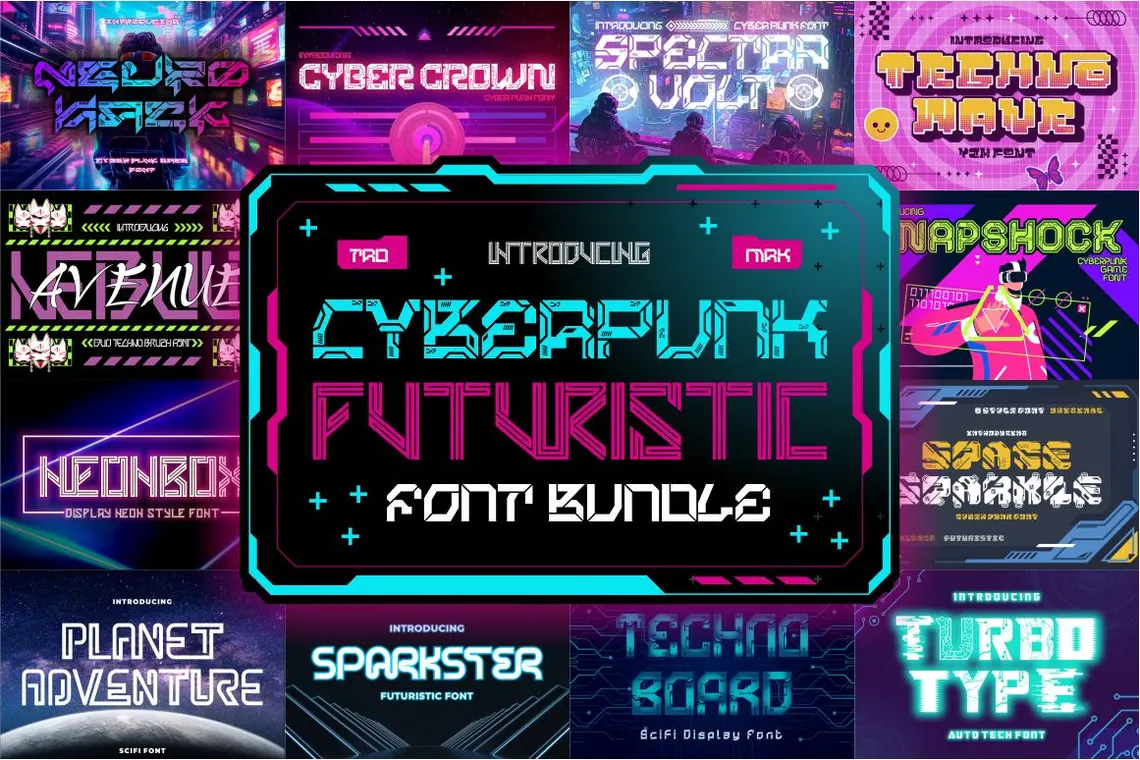
Best Cyberpunk & Futuristic Font Bundle in 2025
🧠 Explore the Ultimate Cyberpunk Font Bundle for Sci-Fi and Gaming Projects
As digital design races forward into the future, one trend continues to dominate motion graphics, gaming visuals, UI/UX, and brand identity: cyberpunk and futuristic typography. For designers seeking to push the limits of imagination, the Cyberpunk Futuristic Font Bundle on Etsy is the ultimate toolkit.
Packed with 14 premium techno-themed fonts, this bundle delivers a curated selection of cutting-edge styles—from glitch aesthetics to neon display, pixel-grid precision to sci-fi elegance. It’s the perfect choice for creators in gaming, tech, music, branding, and digital storytelling.
Let’s dive deep into why this font bundle is a must-have in 2025 and how each font inside it can level up your creative work.
🚀 Why Choose a Cyberpunk Font Bundle?
In the age of AI, augmented reality, and virtual worlds, futuristic design is no longer niche—it’s essential. This font bundle gives you:
• Consistency in visual style
• High-quality, ready-to-use assets
• Bold looks that stand out across platforms
• Versatility for posters, websites, titles, logos, games, and more
Whether you’re designing a UI for a dystopian app or creating retro-futuristic merch, this bundle delivers power, personality, and polish.
🔎 What’s Inside the Cyberpunk Futuristic Font Bundle?
Here’s a closer look at the 15 fonts included:
1. Cyber Crown – Cyberpunk Font
Sharp, angular, and perfectly tech-themed. Great for bold headlines and cyber interfaces.
2. Digitechno
Clean techno curves ideal for posters, product packaging, or music branding.
3. Nebula Avenue – Duo Techno Brush Font
A dynamic dual-style font offering both solid and brush-stroke options for mixed-media looks.
4. Neonbox – Display Neon Style Font
Think: arcade vibes and vaporwave glow. Stunning in glowing UI and motion graphics.
5. Neuro Hack – Cyberpunk Game Font
A gamer’s dream. Blocky, high-impact letterforms built for futuristic game titles.
6. Pixel Bit
Nostalgic yet crisp, this pixel-style font brings retro gaming flair to modern screens.
7. PLANET ADVENTURE – SCIFI Font
Perfect for sci-fi books, film titles, and merchandise. Adds storytelling flair.
8. Snapshock – Cyberpunk Game Font
Energetic, broken-line aesthetics that channel motion and tension.
9. Space Sparkle – Cyber Punk Font
Rounded tech-lettering with a cosmic twist. Ideal for beauty tech or science visuals.
10. Sparkster – Futuristic Font
Light-speed inspired curves and edges. Sleek, modern, and perfect for tech brands.
11. Spectra Volt – Cyberpunk Font
Electrified elegance. Works beautifully in night-themed UI or neon motion intros.
12. Techno Wave – Y2K Style Font
A blast from the Y2K past with ultra-digital vibes. Great for nostalgic web designs.
13. TechnoBoard
Sleek, square, and systematic. Mimics circuit board layouts. Use in fintech or systems UX.
14. Turbo Type – Auto Tech Font
Engineered for speed. A great choice for automotive, racing, or tech sports branding.
💡 Tips for Working with Cyberpunk Fonts
1. Pair Wisely: Combine bold futuristic fonts with simple sans-serifs for balance.
2. Use Neon Gradients or Glitch Effects: Amplify the tech energy with glowing colors or distortion overlays.
3. Match Tone to Medium: Use gritty, blocky fonts like Snapshock for games; smooth ones like Sparkster for futuristic brands.
4. Animate Headlines: These fonts shine when used in motion for reels, banners, and video titles.
5. Limit Text Use: Use these fonts for headlines and short bursts of text to avoid overwhelming your layout.
🧠 Why This Bundle Stands Out
Unlike random font packs that feel disconnected, this one offers:
• Visual harmony within a futuristic theme
• Creative range, from neon brush styles to pixelated grids
• Production-level quality with clean curves and spacing
• Instant aesthetic impact across genres
It’s a collection built by designers, for designers who need speed and standout results.
🔮 The Future Is Typographic
As AI, Web3, and spatial computing enter the mainstream, designers need fonts that match the future. This bundle doesn’t just supply letters—it offers a vibe, a vision, a voice for the digital era.
So whether you’re branding a startup, designing a game, or launching a YouTube channel, this font bundle will electrify your message and sharpen your aesthetic.